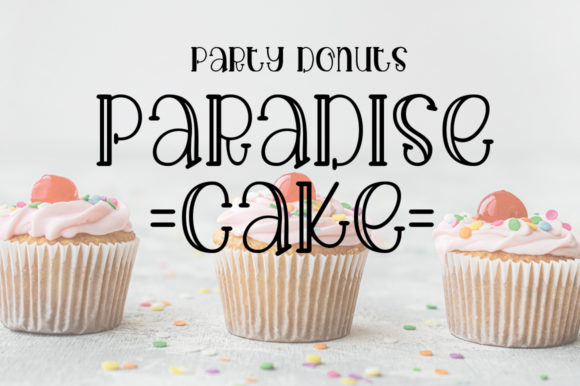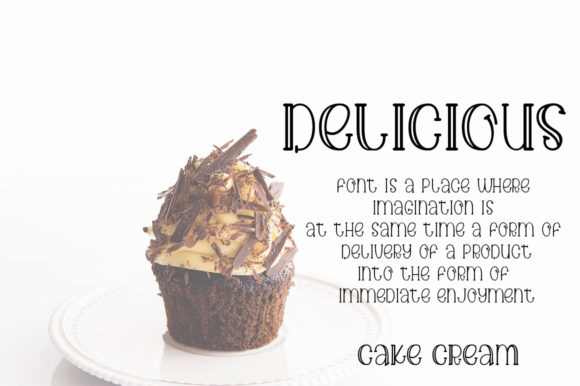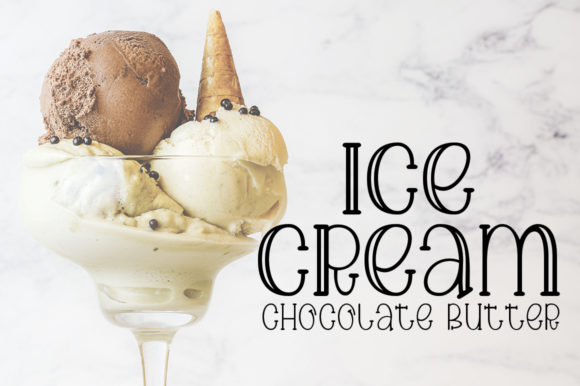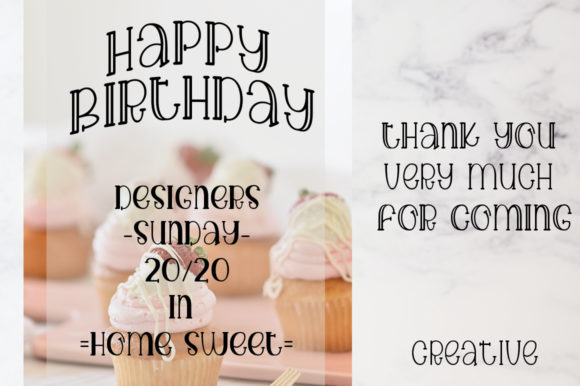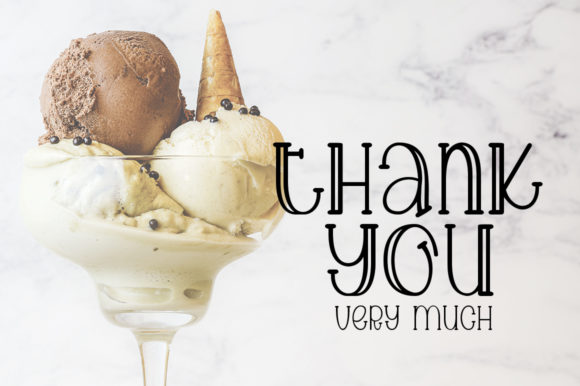
Cake Cream Font: The Sweetest Addition to Your Design Collection
Are you a designer, crafter, or DIY enthusiast looking for a font that adds a touch of whimsy and playfulness to your creative projects? Look no further than Cake Cream Font! This fun, quirky, and cute display font is sure to make your designs come alive with its unique charm and character.
What is Cake Cream Font?
Cake Cream Font is a display font designed to add a dash of sweetness and fun to your creative projects. Its playful and quirky design makes it perfect for a wide range of applications, from party invitations and baking blogs to craft tutorials and DIY projects.
With its bold and rounded letters, Cake Cream Font is sure to grab attention and add a touch of personality to your designs. Whether you’re creating a logo, a social media graphic, or a printable art piece, this font is sure to make your project stand out from the crowd.
Features of Cake Cream Font
- Fun and Quirky Design: Cake Cream Font features a playful and quirky design that’s sure to add a touch of whimsy to your creative projects.
- Bold and Rounded Letters: The font’s bold and rounded letters make it perfect for creating eye-catching headlines and titles.
- Easy to Read: Despite its playful design, Cake Cream Font is easy to read and understand, making it perfect for use in a wide range of applications.
- Versatile: Cake Cream Font can be used in a wide range of creative projects, from digital designs to printables and crafts.
Uses of Cake Cream Font
Cake Cream Font is a versatile font that can be used in a wide range of creative projects, including:
- Party Invitations: Add a touch of whimsy and fun to your party invitations with Cake Cream Font.
- Baking Blogs: Use Cake Cream Font to add a playful touch to your baking blog’s headers and titles.
- Craft Tutorials: Add a touch of personality to your craft tutorials with Cake Cream Font.
- DIY Projects: Use Cake Cream Font to add a playful touch to your DIY project labels and instructions.
- Social Media Graphics: Add a touch of fun and whimsy to your social media graphics with Cake Cream Font.
Tips for Using Cake Cream Font
Here are a few tips for using Cake Cream Font in your creative projects:
- Use it as a Display Font: Cake Cream Font is designed to be used as a display font, so use it to add a touch of personality to your headlines and titles.
- Pair it with Other Fonts: Cake Cream Font pairs well with a wide range of fonts, so feel free to experiment with different font combinations to find the perfect look for your project.
- Experiment with Colors: Cake Cream Font looks great in a wide range of colors, so don’t be afraid to experiment with different colors to find the perfect look for your project.
Cake Cream Font is a fun, quirky, and cute display font that’s sure to add a touch of whimsy and playfulness to your creative projects. With its bold and rounded letters, easy-to-read design, and versatile uses, this font is perfect for designers, crafters, and DIY enthusiasts of all levels. So why not give Cake Cream Font a try and see how it can make your designs come alive?
Whether you’re creating party invitations, baking blogs, craft tutorials, or DIY projects, Cake Cream Font is sure to be a great addition to your design collection. So go ahead, get creative, and have fun with Cake Cream Font!